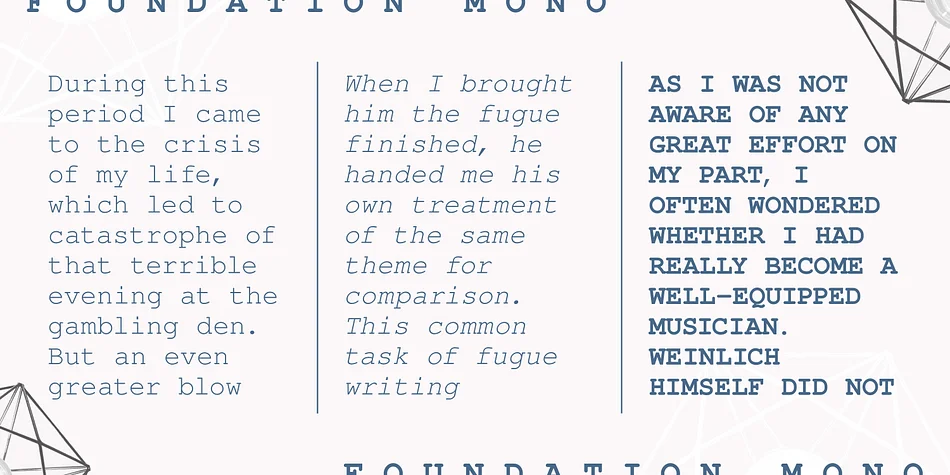
Foundation Mono Font
There is a particular satisfaction in finding a typeface that delivers strong typographic hierarchy support without compromise. Foundation Mono consistently provides it. The typeface brings a versatile sensibility to a broad range of creative disciplines, with a confident voice that adapts to diverse briefs that holds up whether the work is print-first or screen-first.
In practice, Foundation Mono proves particularly effective for environmental graphics, signage systems, editorial layouts, advertising campaigns, product labels. Designers reaching for it find that the type decisions feel resolved rather than laboured — a useful quality when client timelines are tight.
The range of applications extends to packaging design, logo design, social media graphics, web design. That breadth is deliberate: the proportions and spacing were stress-tested across a wide range of mock briefs before the typeface was finalised.
Graphic designers working on identity systems find Foundation Mono a reliable choice for projects that demand both personality and restraint. The design avoids the self-conscious quirkiness that dates quickly, settling instead for considered distinctiveness that holds up over time.